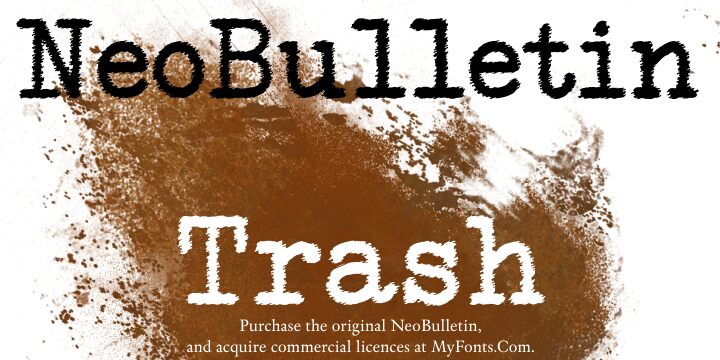
NeoBulletin Trash by Iza W of IntellectaDesign is a free eroded serif display font with the sturdy proportions of old newspaper type. Its blunt slab serifs and uneven ink coverage recall a worn press impression rather than a clean digital face. Ragged edges run through the lettering, with scratches breaking into the strokes.
A newspaper-style poster is its most convincing setting, especially for exhibitions or music events seeking a rough printed surface. It also suits editorial covers and packaging with a vintage workshop or archival theme. Its clearest role is a battered newspaper headline.
NeoBulletin Trash by Intellecta Design is a limited free version of the original NeoBulletin with a different character-set layout.
NeoBulletin is a typewriter font with complete Latin, Cyrillic, and Greek character sets. The same OpenType font also includes complete Central European, Vietnamese, Baltic, and Turkish character sets, with all diacritic marks and punctuation marks, plus additional characters belonging to these ranges. It contains more than 600 glyphs.